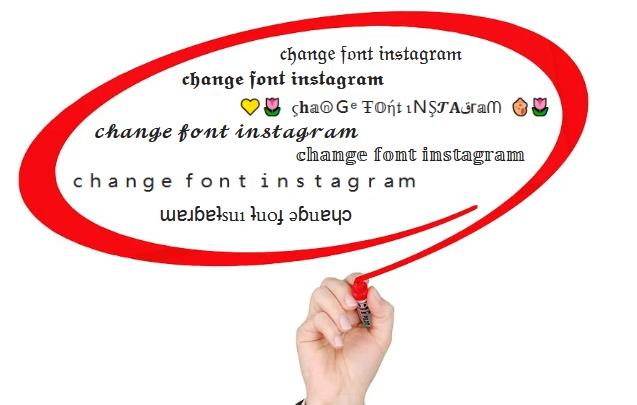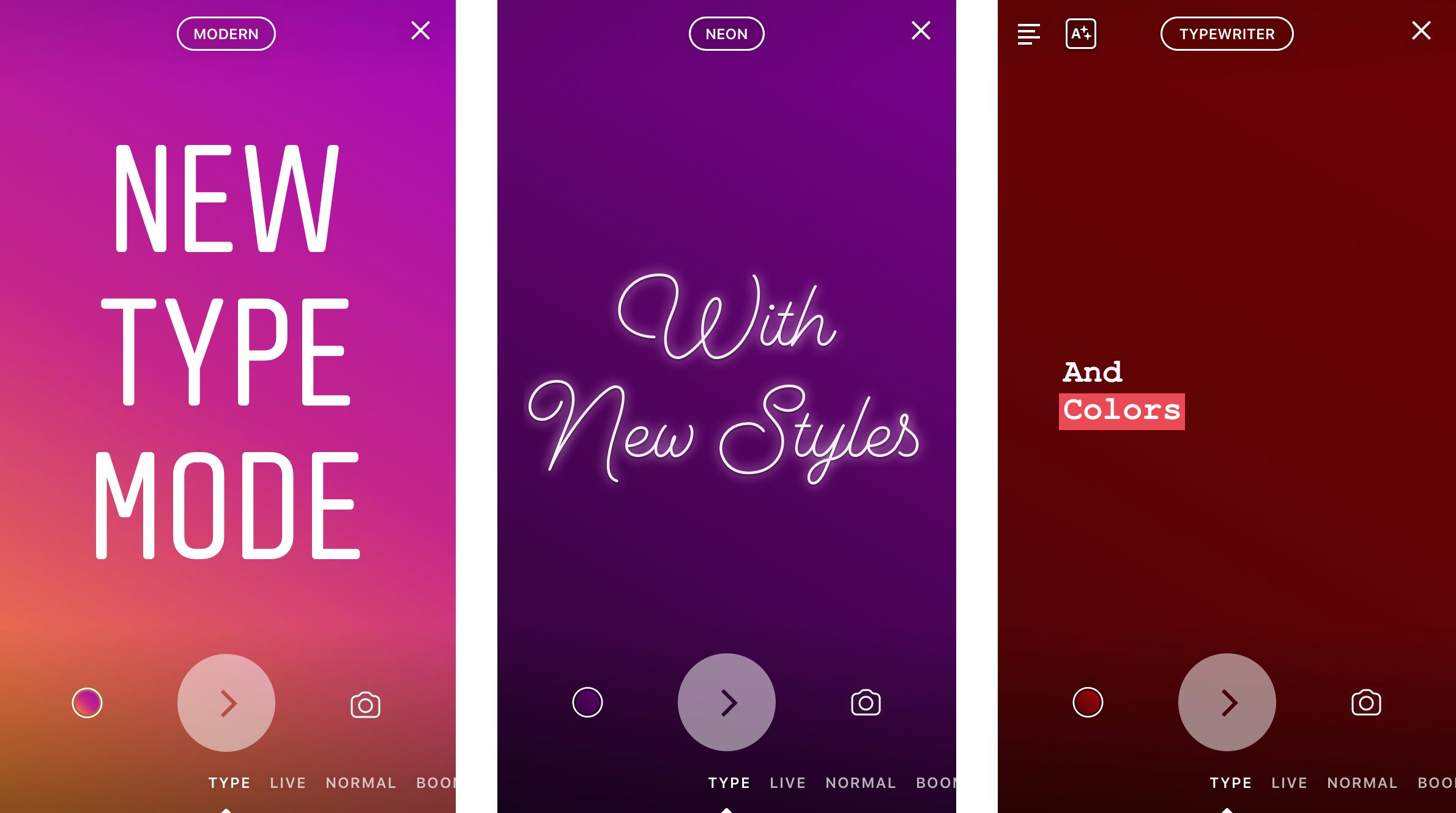
Learn how to use custom fonts where Instagram supports them, and even where it doesn't.
Instagram is fairly limited when it comes to fonts. For instance, there is no official setting that lets you change your Instagram's bio font or even the fonts of your comments. But that doesn't mean that you can't change fonts at all.
In this article, we'll show you different ways to change fonts in your Instagram Stories, bio, comments, and even captions.
One of the easiest things to customize on Instagram is the fonts in your text-based Stories. What makes this easy is that Instagram allows you to choose between a range of fonts by default. There's a total of nine fonts at the time of writing. Here's how to change the font of your text-based Instagram Story:
As mentioned above, you only get access to nine fonts by default. Thanks to enterprising people on the internet, though, you can use fonts that Instagram doesn't support officially. You can do this using Instagram font generator sites.
Using such sites is easy. You just need to copy text from them, and it will retain its font style when you paste it into Instagram. This method gives you access to over 100 fonts, which dwarfs the nine Instagram offers by default.
Read on for step-by-step instructions on using font generator sites to change the fonts of your Instagram text.
There are many font generator sites, but they all work on a basic principle. You enter the text and copy it to wherever you want. We'll use CoolFont in this tutorial.
Using this method, you'll be able to change your Instagram bio font, and fonts in comments, Stories, and even captions. While you can pick any font from one of these sites, keep in mind that all fonts are not equal.
Some are great and some will just make your text look funky and hard to read. If you don't like what's available, a site like IGFonts.io lets you create your own.
Instagram is a great social media platform, but, like other platforms, it does have its cons here and there.
One of the cons is the limited access to more fonts natively. Thankfully, even without native support, you can change Instagram fonts for any text you enter on the platform. Font generator sites like Cool Fonts and IGFonts.io allow you to change fonts in Stories, comments, your bio, or any other text.
Understanding how to change the font in your Instagram bio isn't a hard process – you don't even have to download anything. To keep things simple, all you need to do is copy the text into one of the many Insta font generator tools, choose the font you like and paste it into your Instagram bio. You'll find the two-step process below, but before we begin: why would you want to customise your bio in this way, anyway?
Instagram is one of the best social media platforms for artists and designers due to its focus on image sharing. But you want your profile to stand out in a crowded marketplace, and an unusual font will help with that.
Remember, you don't want it to look childish or amateur, so it's worth putting some time and consideration into choosing the perfect font.
Need some inspiration? Check out our list of free fonts to help you decide on the type of font you might like. The odd emoji is also good for breaking things up and adding a bit of personality and colour, but don't go overboard or your bio may become hard to read.
A crucial thing to remember is that changing your Insta bio involves the use of unicode characters, which are often not accessible for people who use screen readers, so you definitely don't want your whole bio in a different font. Most people just use change the font for their name, or a small part of their description.
Remember, too, that updating the text itself can have as much impact as changing the font, if not more. The ideal Instagram bio is generally short and sweet: a few snappy words rather than long sentences.
And don't forget to include any relevant links to other accounts you manage, as well as relevant hashtags. With all that in mind, read on to find out how to change the font in your Instagram bio.
First you need to open up an Instagram font generator tool. There are many available on the web, including Insta Fonts , Fancy Fonts and Cool Symbol , but our current favourite is Meta Tags Font Generator , because it makes it easy to preview how your font will look within your Instagram profile.
Type or paste in the text that you want to change into the box titled 'Edit text'. Below, you'll see a list of fonts that can be used in Instagram, and on how your text would look in each of them. If you're visiting the site on your desktop or tablet, you'll also see a mockup on the right of how your text will look in an Instagram profile.
If you have a serious business, and in the profile text with flowers and unreadable squiggles, on the contrary, this can harm promotion. Perhaps you don’t need an unusual font at all - it’s more important to pay attention to the design of the profile as a whole. Add an avatar, add contacts, write a suitable description, develop your own style for the content.